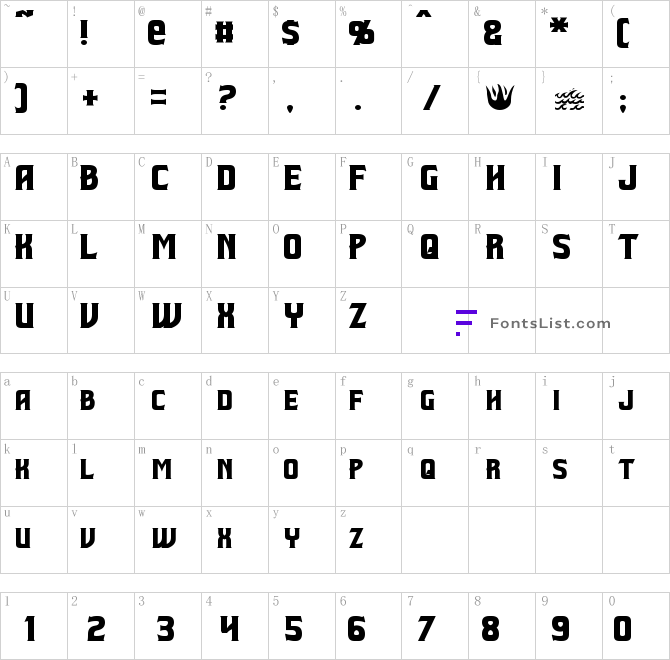
- Font Name:Beastformer
Beastformer.ttf is a very beautiful artistic font, Beastformer.ttf is widely used in the design and printing of various books and pictures,Beastformer.ttf has a strong visual impact,Beastformer.ttf is a commonly used font in newspapers, magazines and books, and is used in posters, e-commerce Poster design, store design, logo design, font design and other fields.Beastformer.